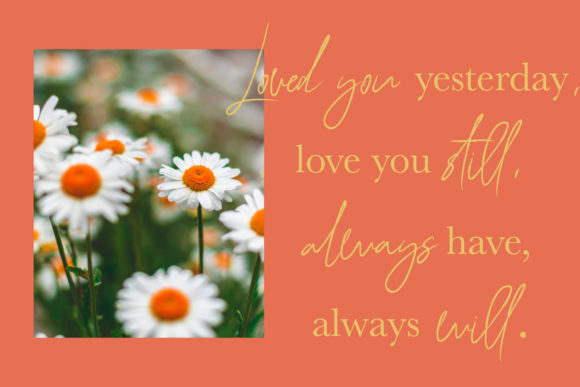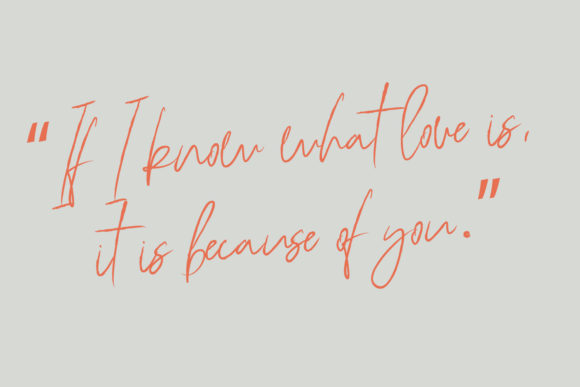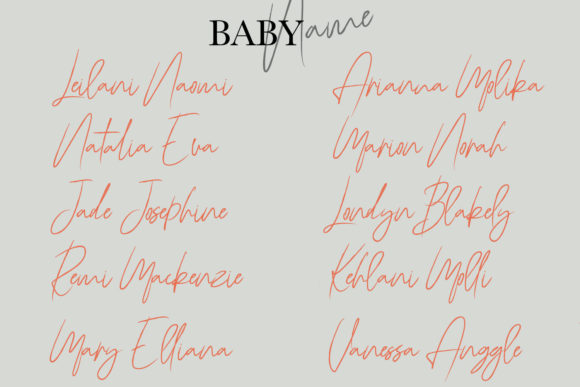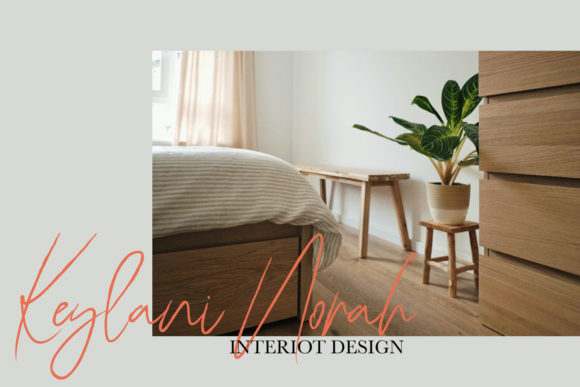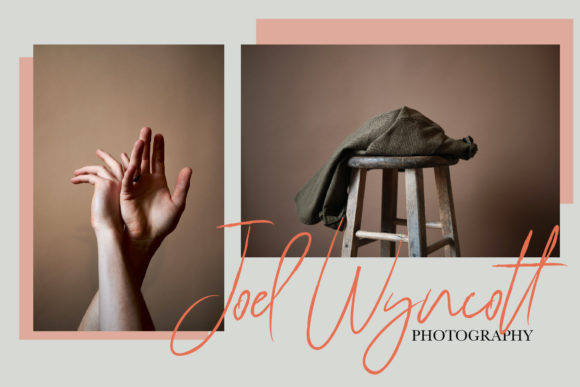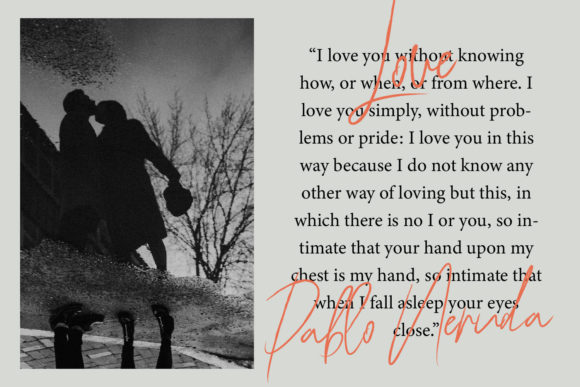
The Perfect Script: Unveiling the Chabhi Font
Have you ever found yourself stuck on a design project, scrolling through font options, and finally discovering that one font that makes everything fall into place? For many designers, this moment is pure magic. It’s the moment when the creative wheels start turning, and the entire design begins to take shape. This is exactly what happens when you come across the Chabhi Font.
Chabhi Font is a stylish and refined script font that exudes elegance and sophistication. Its modern design makes it perfect for a wide range of applications, from logos and branding to invitations and social media posts. Whether you’re a seasoned designer or just starting out, the Chabhi Font is an invaluable addition to your toolkit.
With its versatility and timeless appeal, the Chabhi Font is an essential choice for designers looking to add a touch of class to their work. Whether you’re working on a high-end project or a personal design, this font is sure to elevate your creations to new heights.
Key Features of Chabhi Font
- Unique Characteristic: Chabhi Font features a unique blend of traditional and modern design elements, making it suitable for a wide range of applications, from formal to informal.
Chabhi Font Review
First off, let me say that I’m a fan of unique font styles. The Chabhi Font is no exception. It’s got a quirky, exotic vibe that’s perfect for adding some personality to your designs. ✨ I love how it’s not too bold or too thin – it strikes the perfect balance between legibility and style.
One of the things that really stands out about the Chabhi Font is its versatility. It’s suitable for a wide range of projects, from logos and branding to web design and print materials. ✨ It’s also highly customizable, so you can easily adjust it to fit your specific needs.
- ⚠️ The Chabhi Font may not be the best choice for body text, as it can be a bit difficult to read in smaller sizes.
Overall, I think the Chabhi Font is a great addition to any designer’s toolkit. While it may have some limitations, its unique style and versatility make it a great choice for a wide range of projects. Just be sure to use it wisely and consider the potential limitations before making it the focal point of your design.
The Chabhi Font is ideal for designing traditional Indian or Middle Eastern-inspired graphics, such as invitations, posters, and social media graphics. It’s also suitable for creating cultural or historical-themed designs. Experiment with different font sizes, colors, and styles to achieve the desired look.
Getting the Most Out of Chabhi Font
To get the most out of Chabhi Font, experiment with different font sizes, colors, and styles. Pair it with other fonts to create a unique and eye-catching design. Use it to add a touch of cultural or historical flair to your graphics.